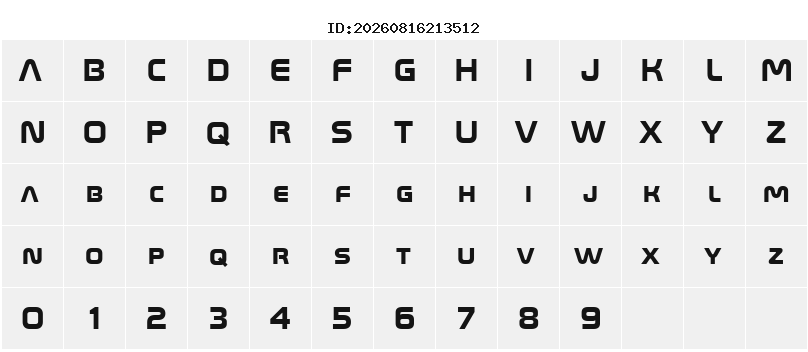
• Font Name: Space Bd BT
• Font ID: Space Bold, Swiss 080
• Full Font Name: Space Bd BT Bold
• PostScript Name: SpaceBT-Bold
About Space Bd BT.ttf
Space Bd BT.ttf is a modern, elegant sans-serif font designed for ultimate readability and visual harmony. Perfect for branding, headlines, web design, and print materials.